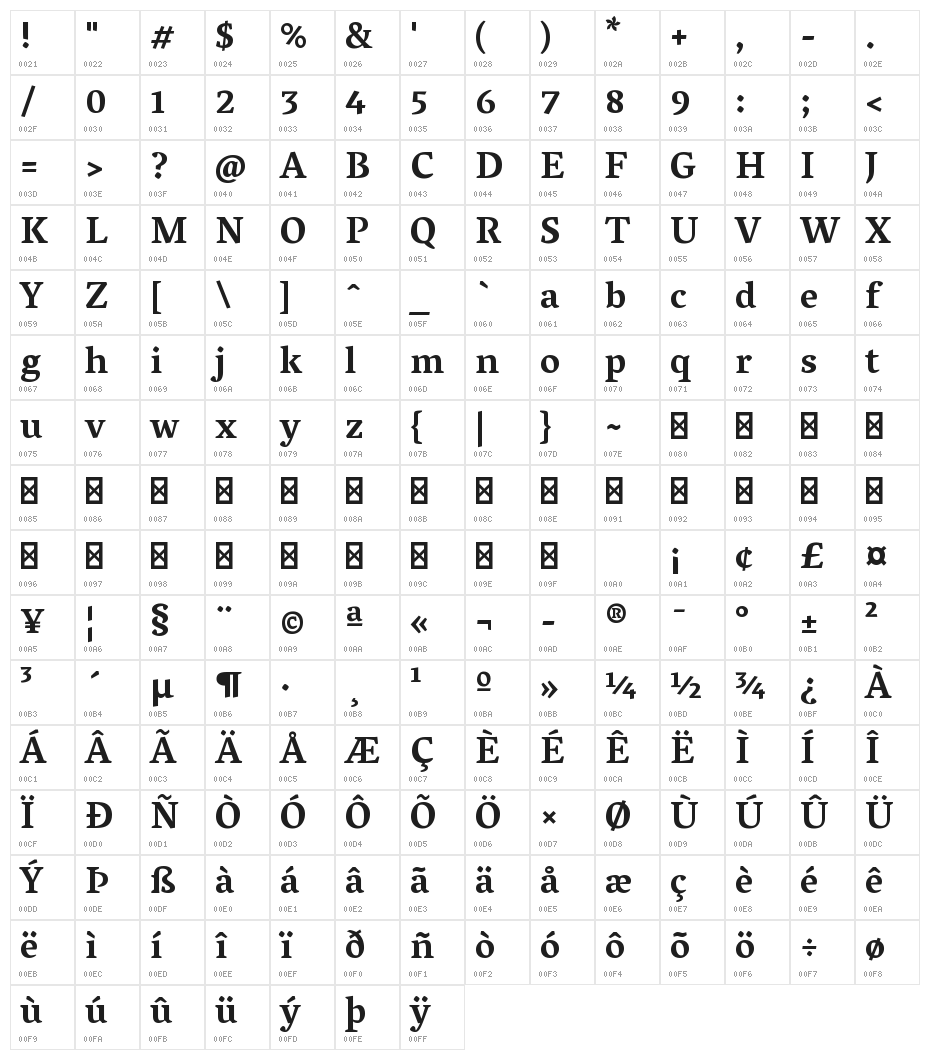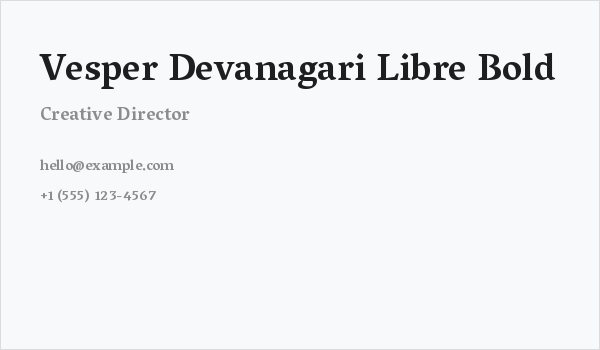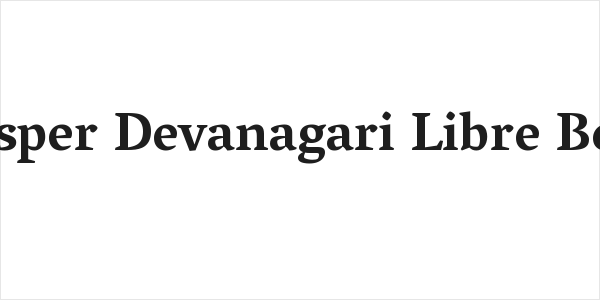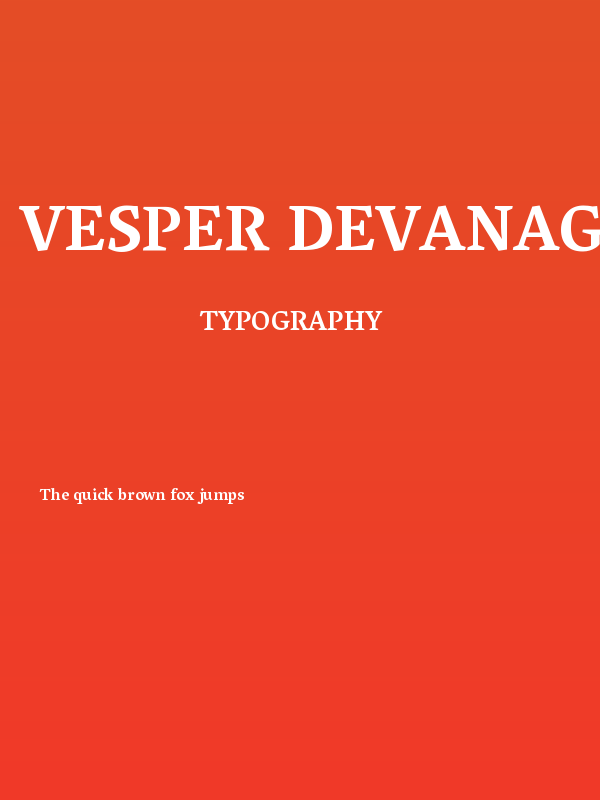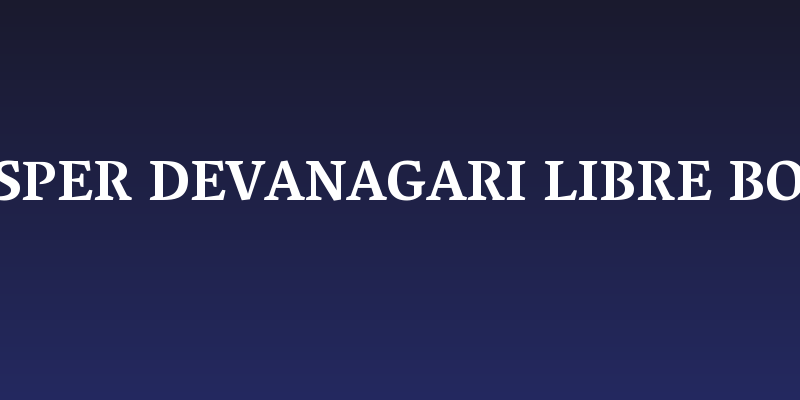
Vesper Devanagari Libre Bold Font
Vesper Devanagari Libre Bold Description
This font exhibits a bold and authoritative presence with its strong, thick strokes and well-defined serifs. The uppercase letters are robust and commanding, while the lowercase characters maintain a consistent weight, offering a harmonious balance. The numerals are clear and legible, making them suitable for various applications. Special characters are crafted with precision, ensuring they complement the overall style. The font's design is versatile, making it ideal for both digital and print media, where clarity and impact are essential.
| Proposed Projects | Ideal for headlines, posters, branding materials, and editorial design. |